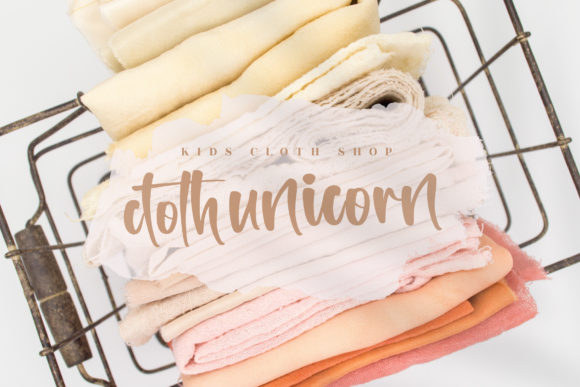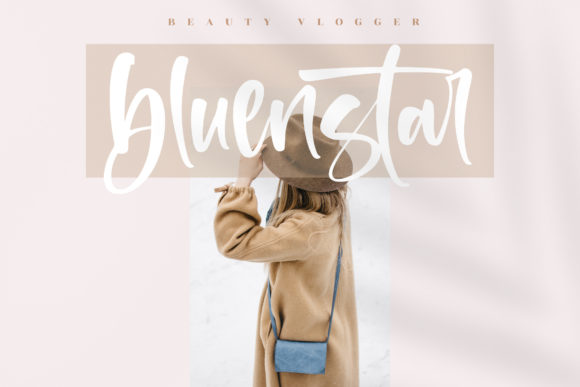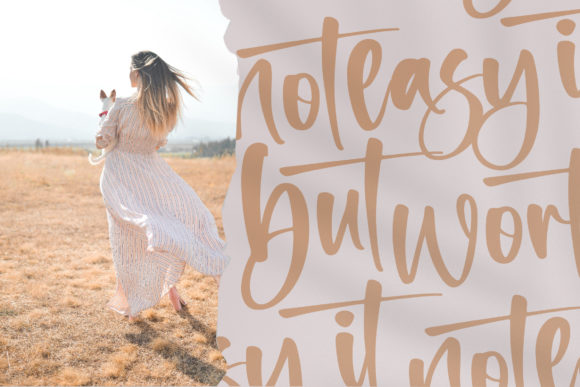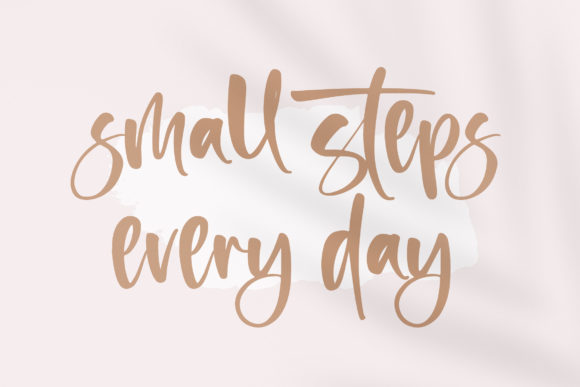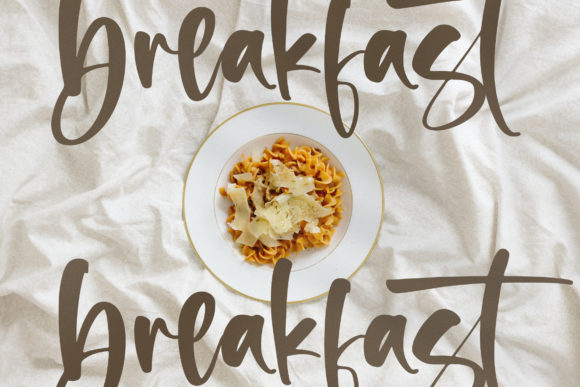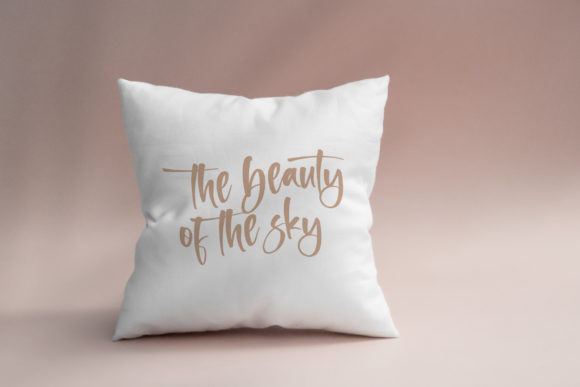
Introduction to Maglicon Font Font
Fonts play a crucial role in design, and the Maglicon Font font is a typeface that brings both character and versatility to any project. Whether you’re working on a branding project, a website, or a print design, the Maglicon Font font offers a unique style that can elevate your work.
Maglicon is a distinct and paint brushed script font.
Key Features of Maglicon Font Font
Why Choose Maglicon Font Font?
The Maglicon Font font is more than just a typeface – it’s a design tool that helps you communicate your message with style and clarity. Its unique character set and versatile design make it suitable for a wide range of applications, from elegant invitations to bold headlines.
With its carefully crafted letterforms and balanced proportions, the Maglicon Font font ensures readability and visual appeal across all mediums.
What makes Maglicon Font font special?
The Maglicon Font font stands out with its unique design, exceptional readability, and versatility across various design applications.